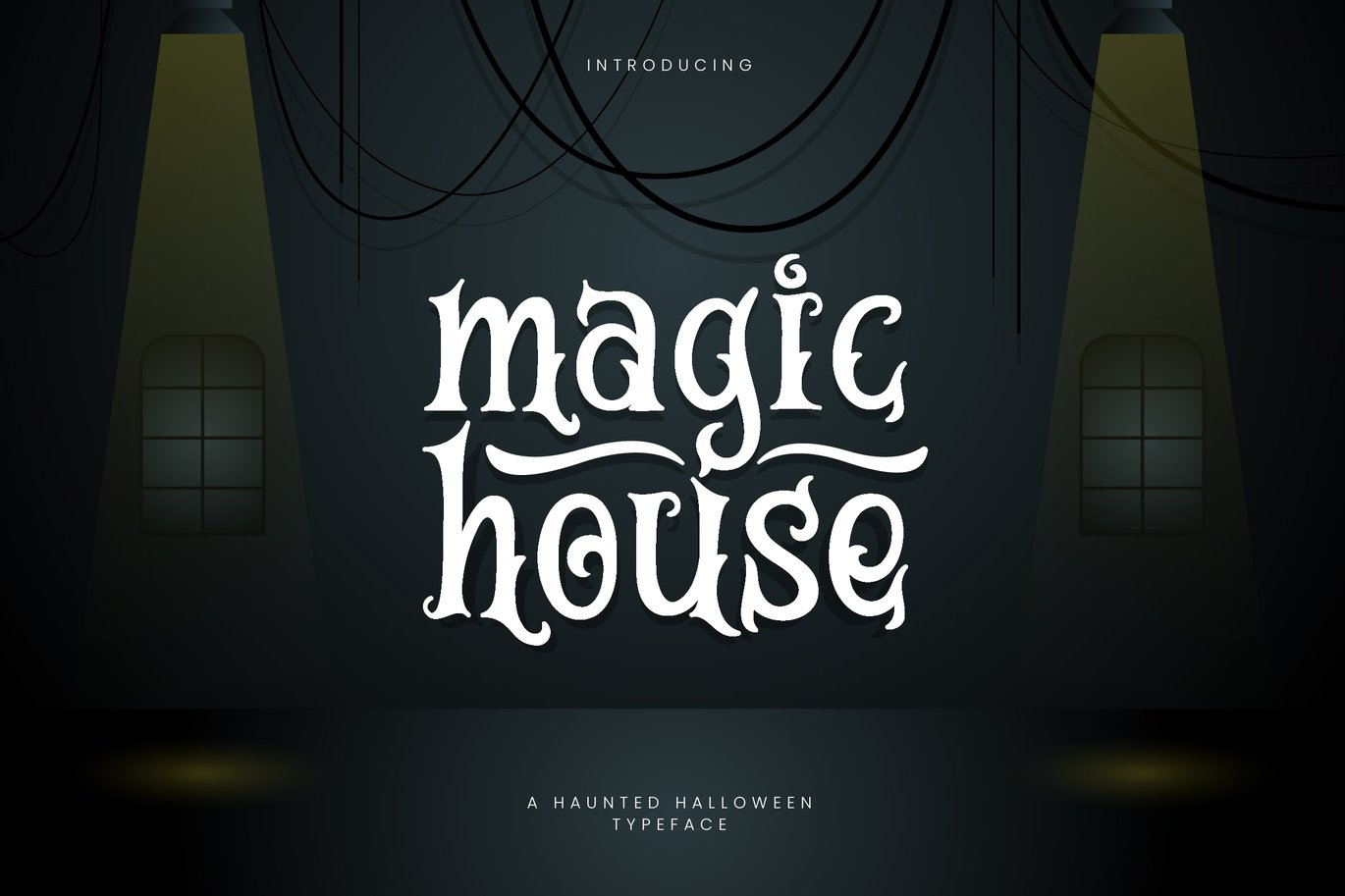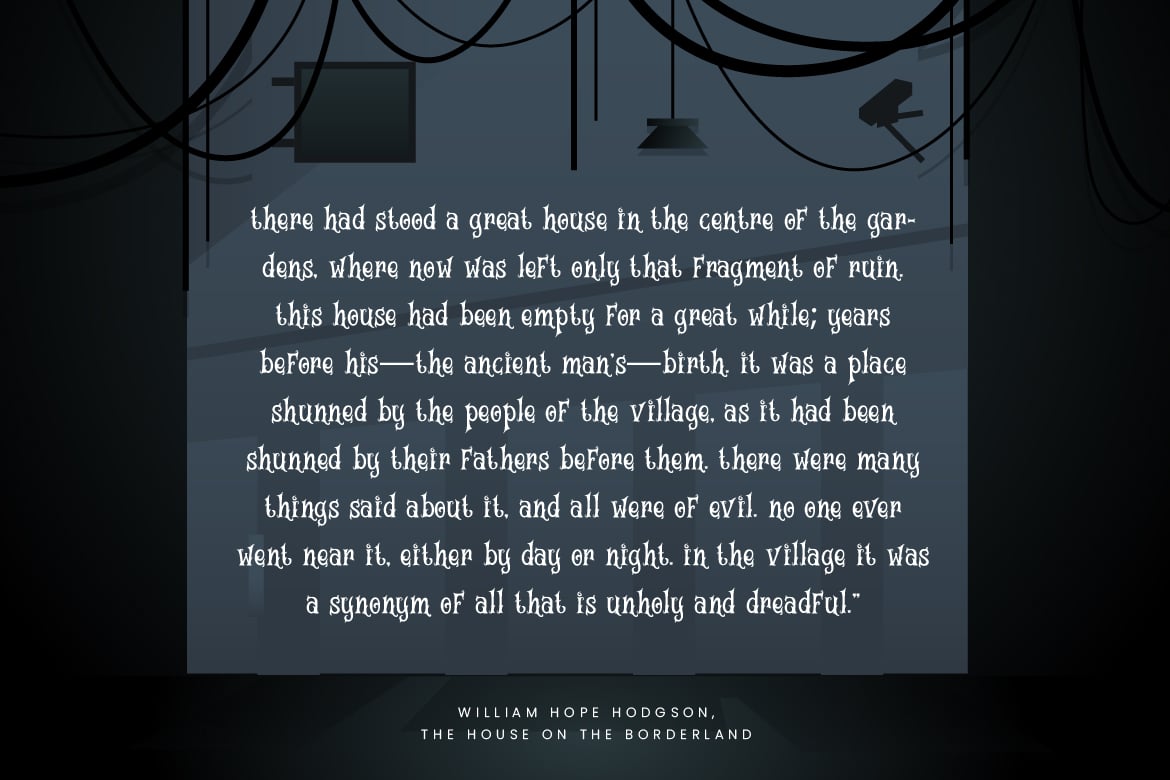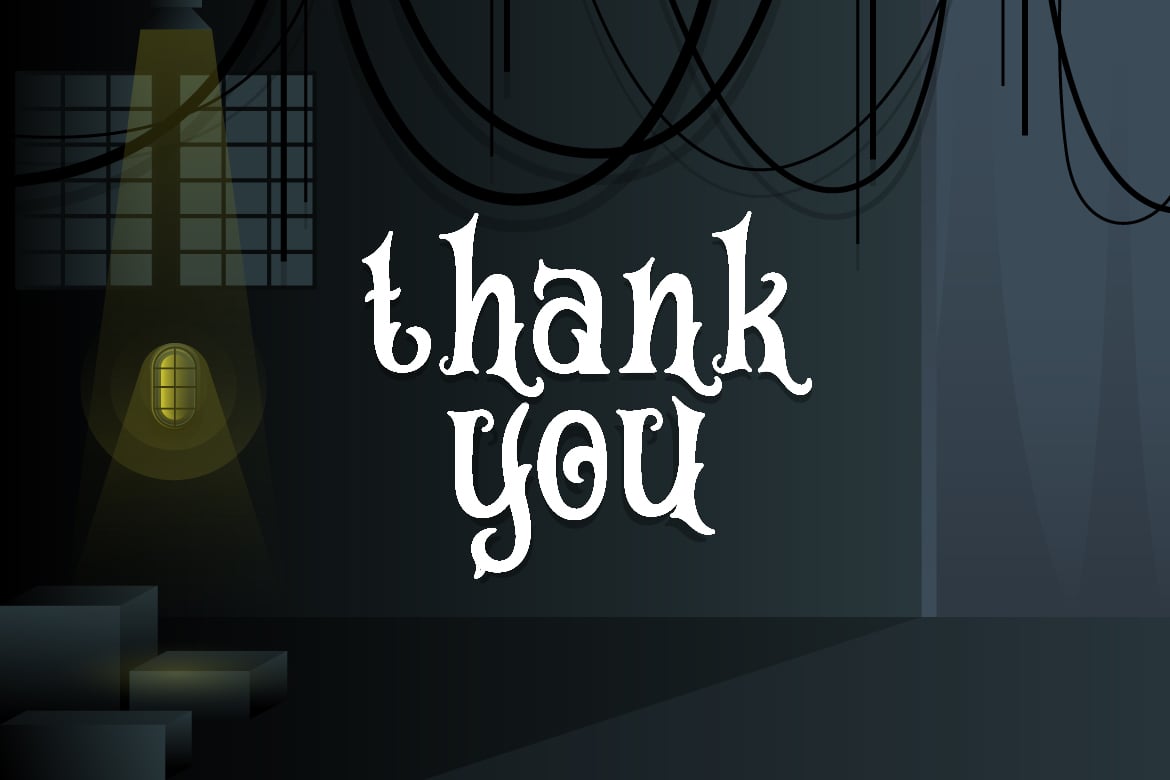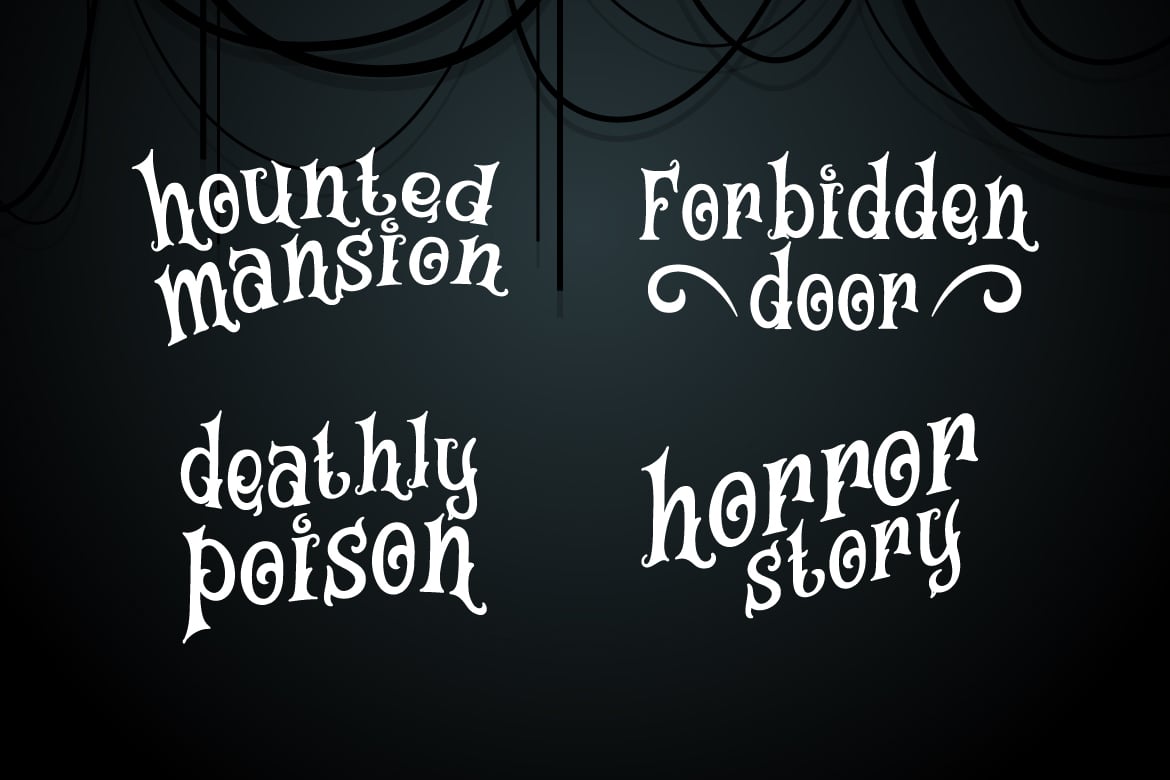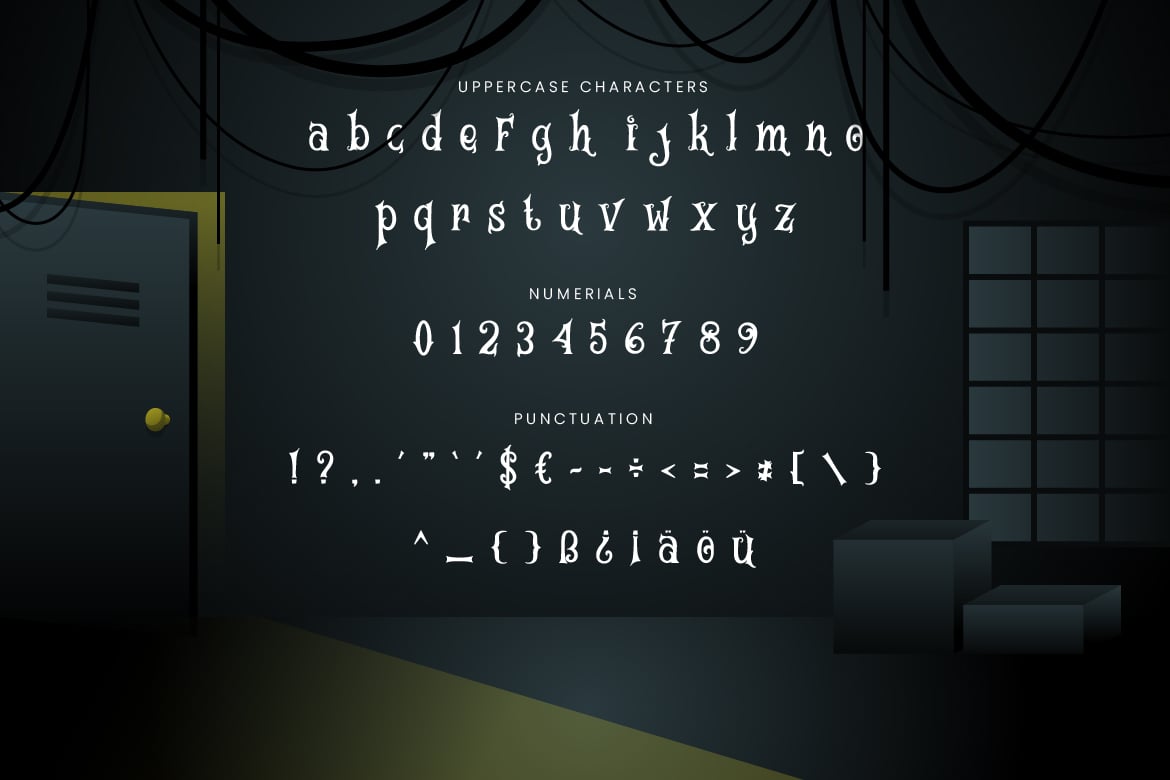
Magic House – Haunted Halloween Typeface
Are you looking for a haunted handrawn font for children and halloween event? We can help! Try to download our magic house haunted halloween font. The font is suitable to use for casual purpose especially children related occasion and halloween π